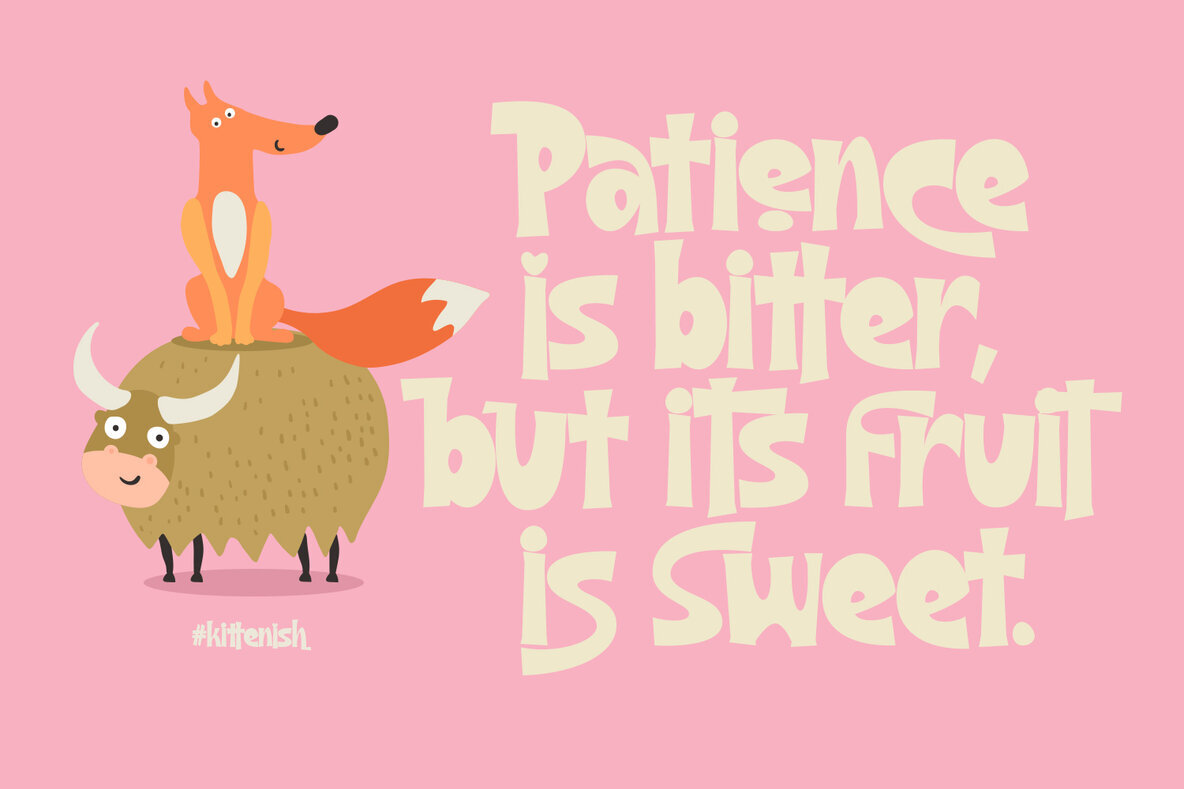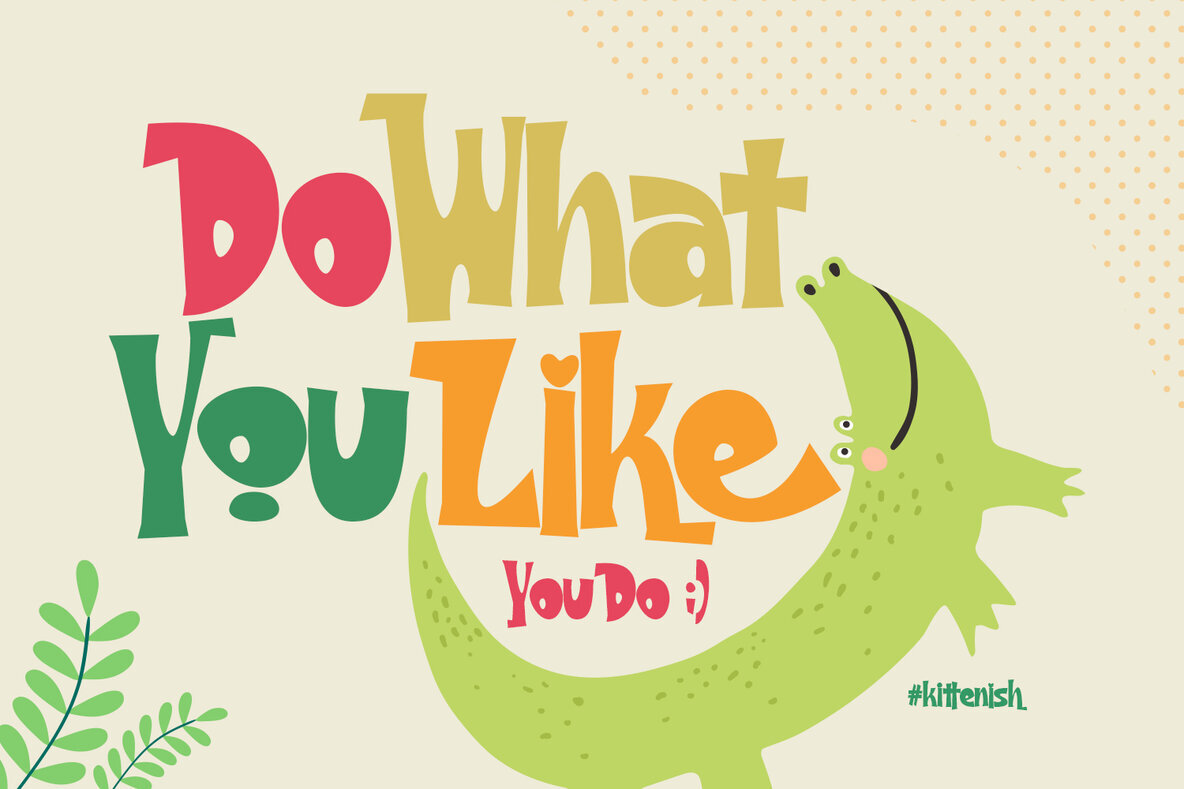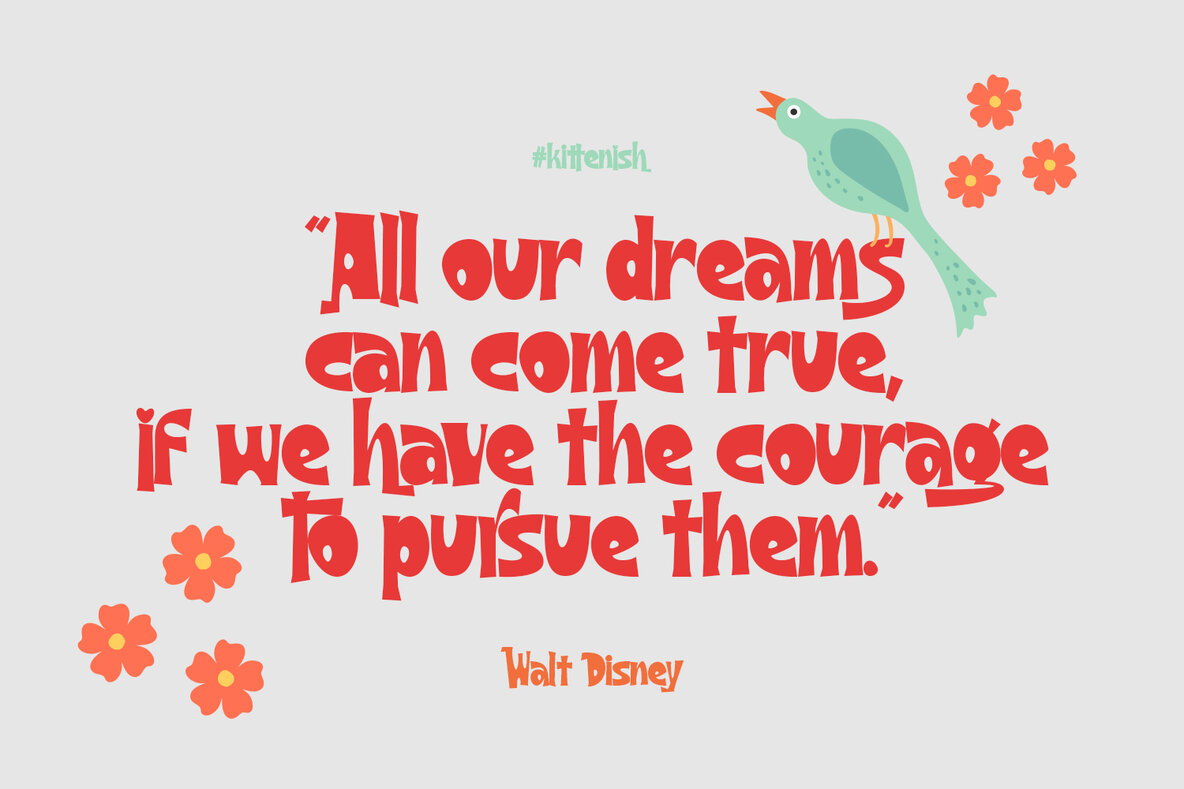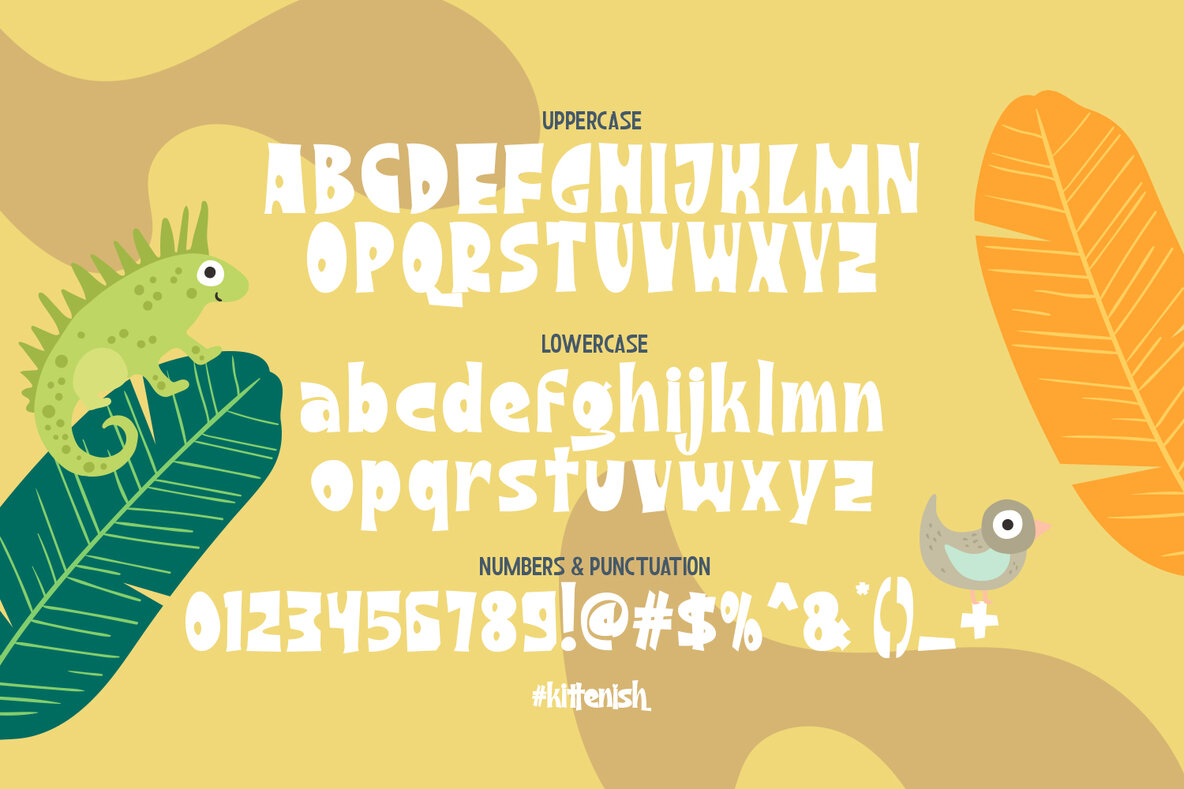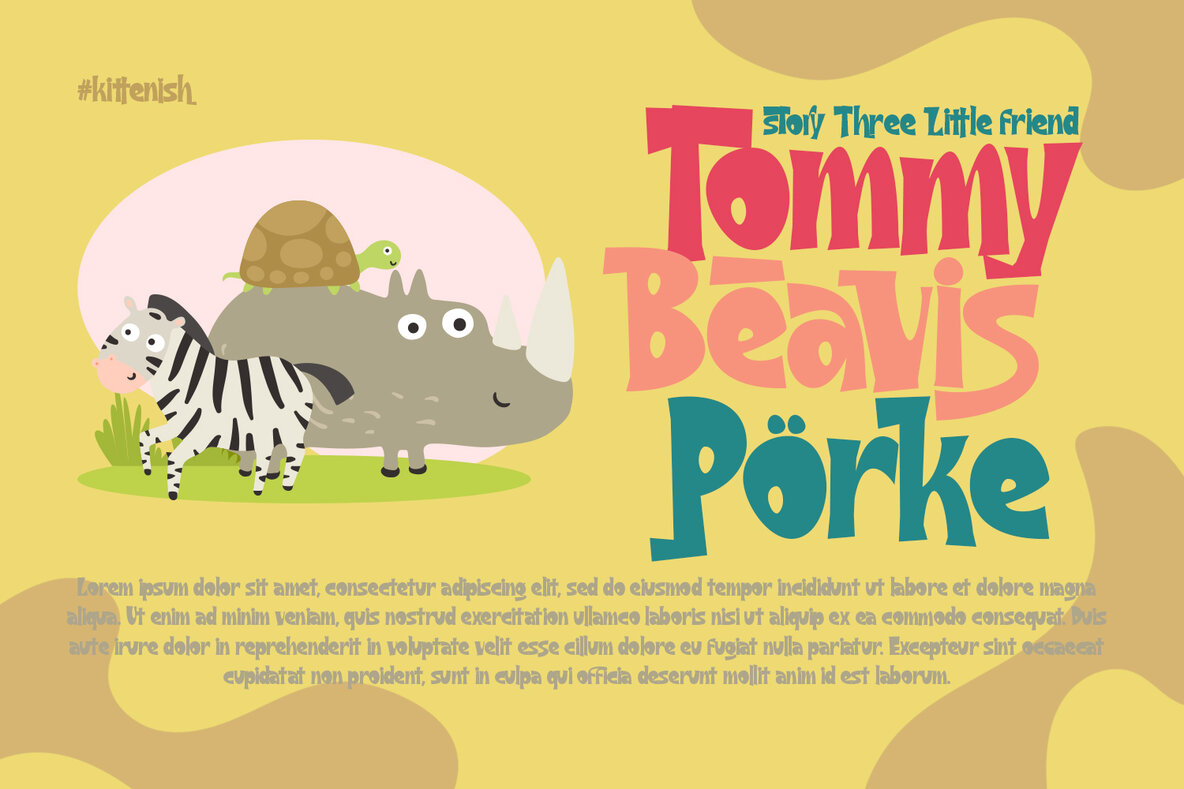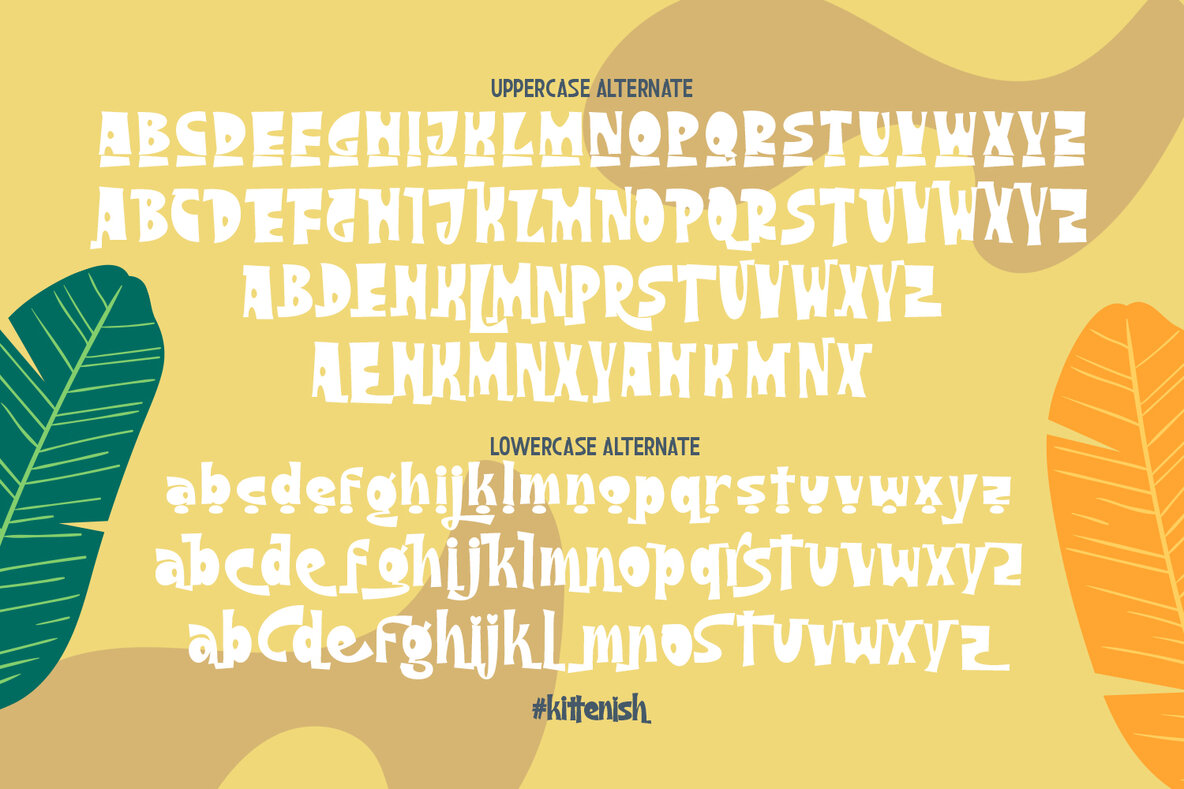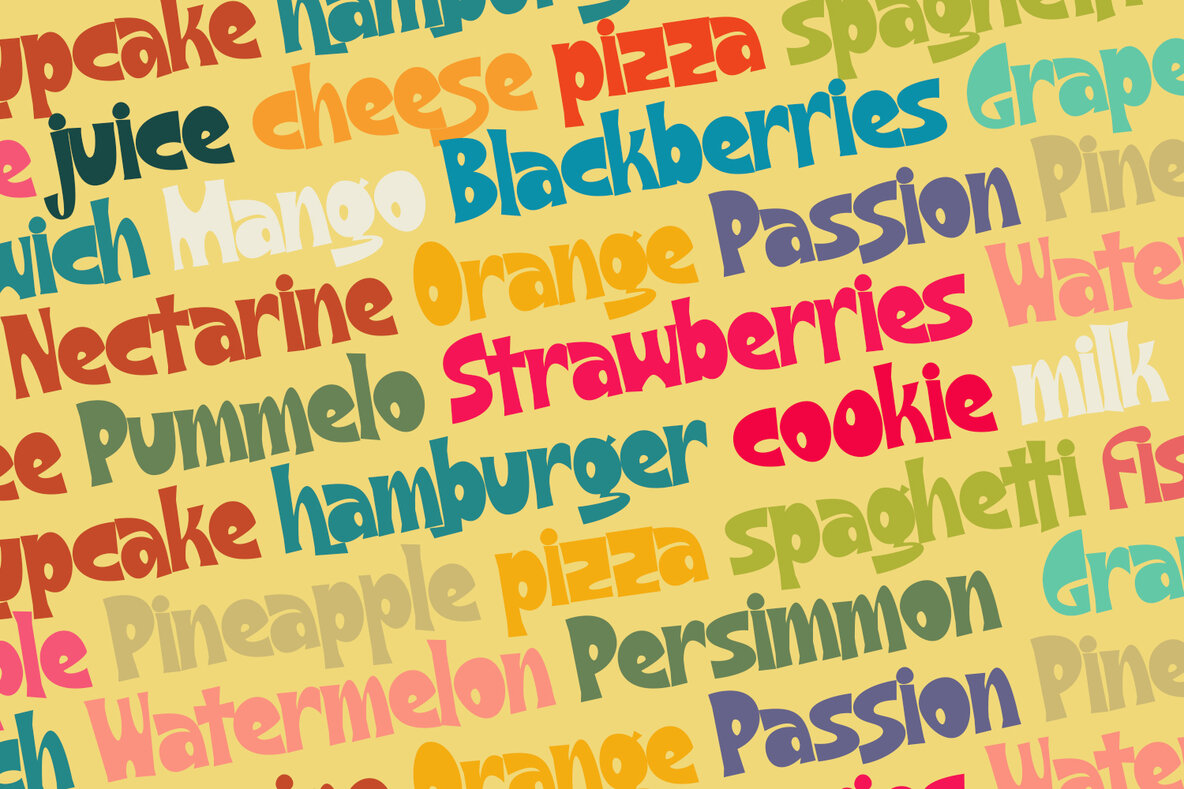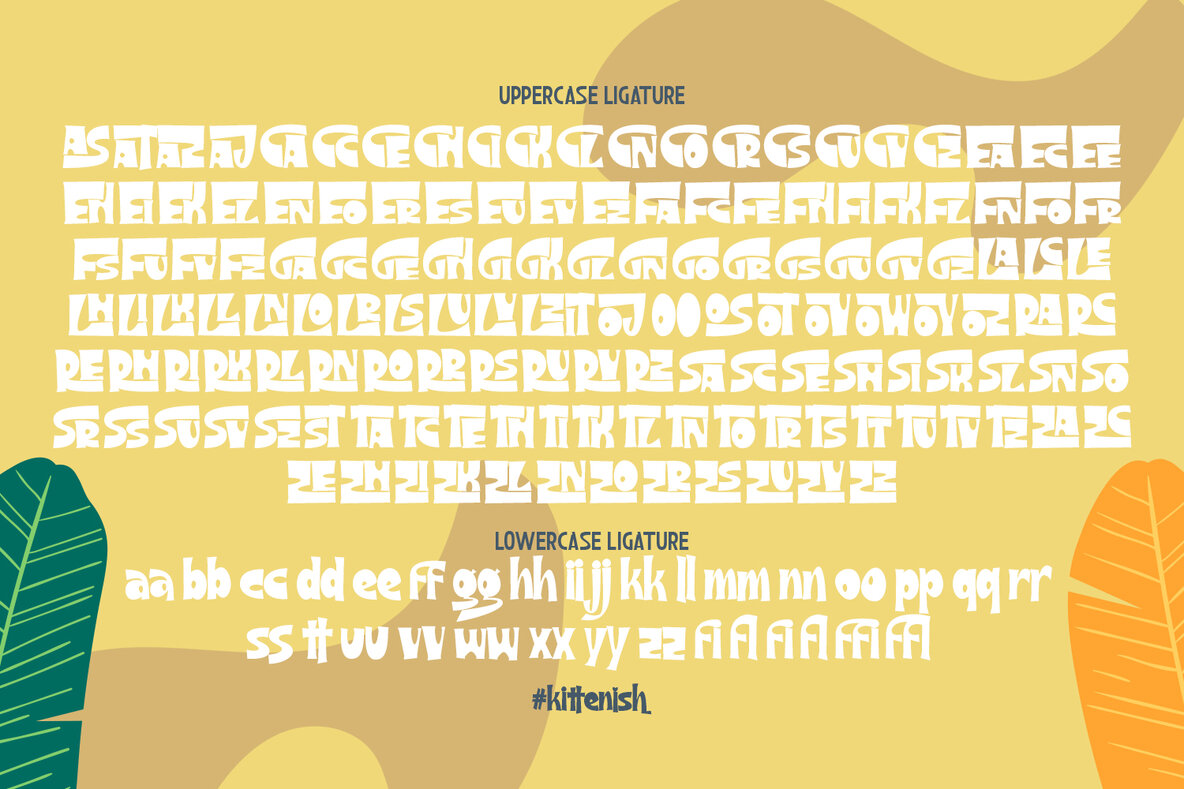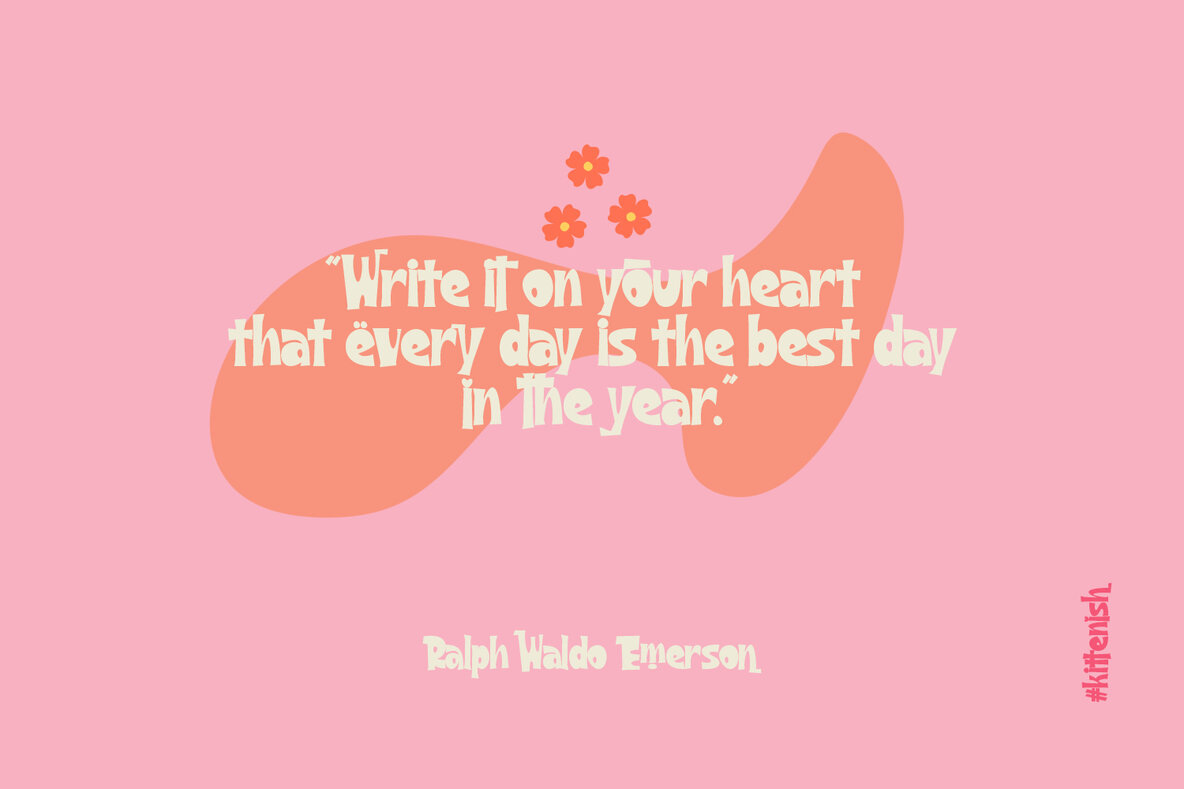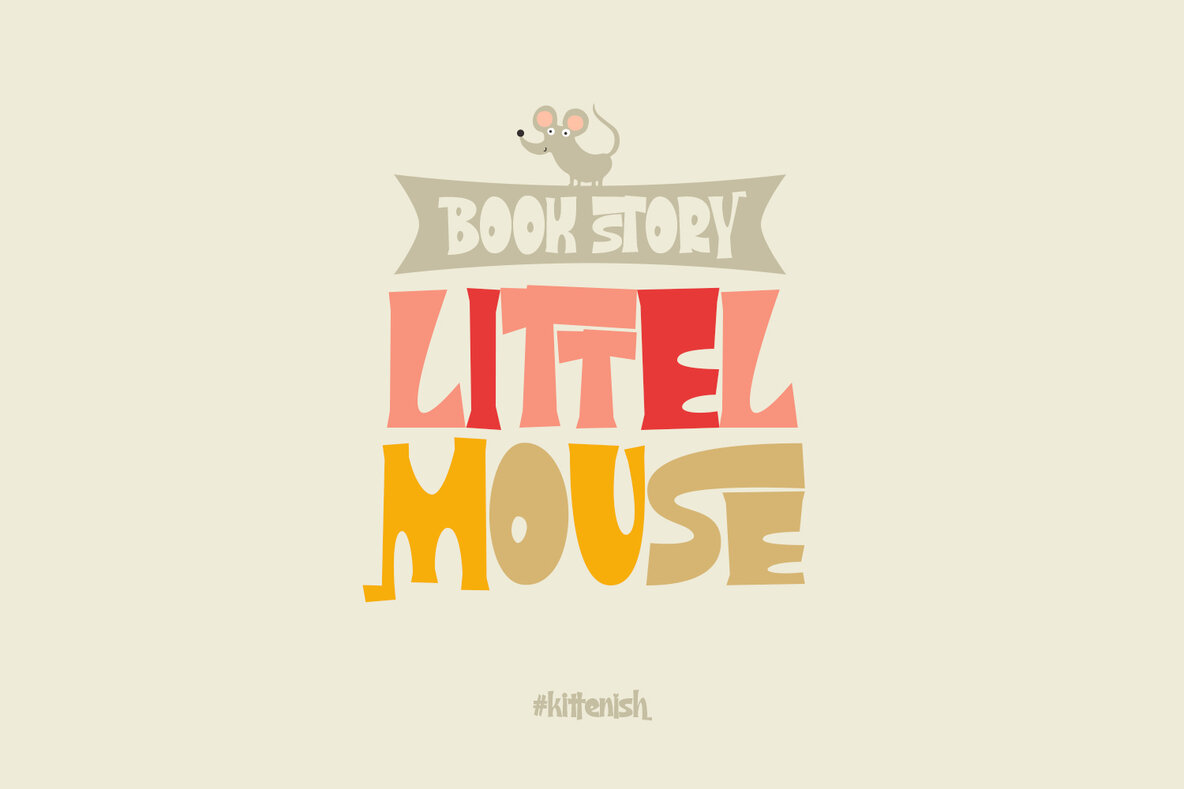
Kittenish Font
Introducing Kittenish is a playful font and will be perfect for book, title branding, product packaging, invitation, quotes, t-shirt, label, poster, logo etc.
- 2 style font
- Number & Symbol
- International Glyphs
- Multilingual support